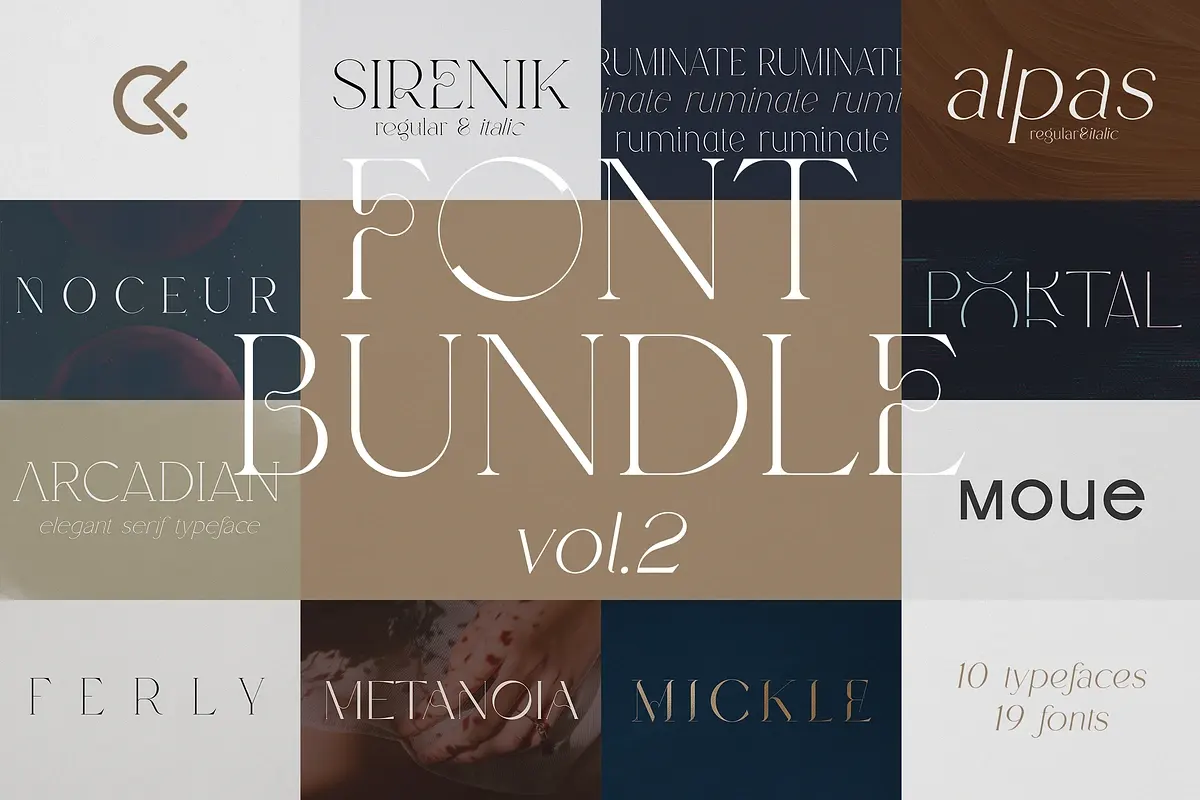
Font Bundle Vol.2 - 19 Fonts Free Download
A diverse and expansive collection, Font Bundle Vol.2 - 19 Fonts Free Download offers a variety of typefaces, each designed to suit a wide range of creative projects. This bundle includes 19 high-quality fonts that cover a mix of styles, from elegant serifs and modern sans-serifs to playful scripts and display fonts, making it perfect for any designer.
Ideal for branding, logos, invitations, social media graphics, editorial designs, and more, this collection provides everything you need to elevate your projects. Whether you're designing a professional website, a trendy logo, or a creative poster, this bundle ensures that you have versatile options at your fingertips.